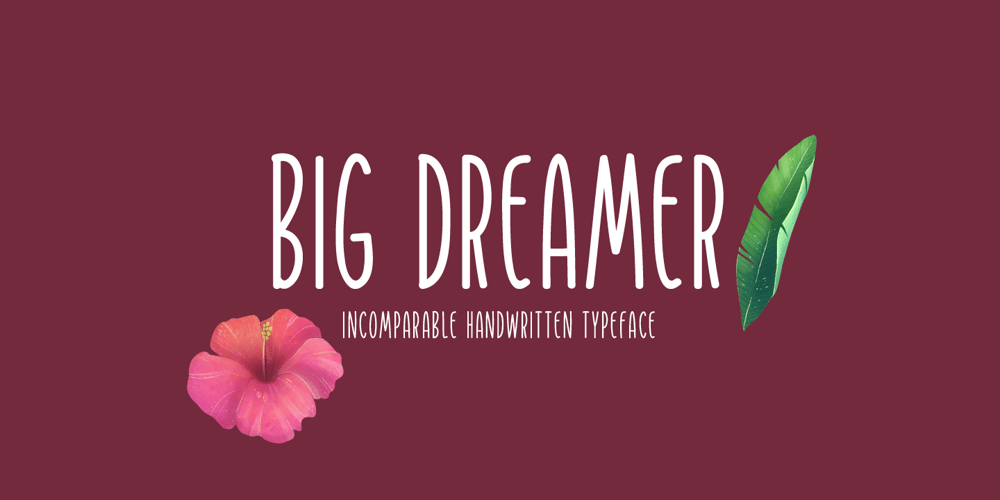
Big Dreamer
Big Dreamer font
Big Dreamer Font Family was designed by Md Shohail Bhuian and published by Seemly Fonts. Big Dreamer contains 1 styles and family package options. Big Dreamer is a thin and tall display font. It can easily be matched to an incredibly large set of projects, so add it to your creative ideas and notice how it makes them stand out!